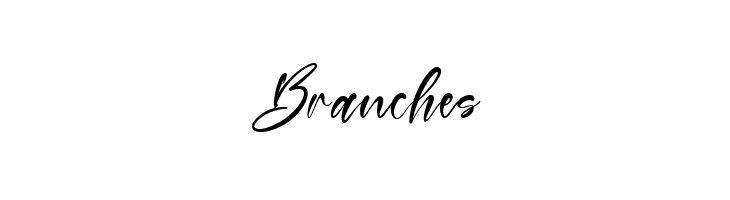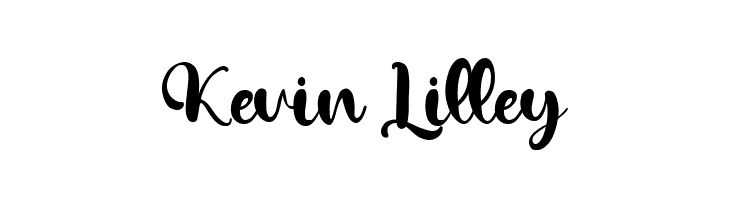
A bold, ornate blackletter font with a medieval aesthetic.
A cursive, handwritten font with elegant, flowing strokes and dynamic contrast.
A bold, cursive script font with a lively and energetic style.
A whimsical, decorative font with flowing, wavy lines.
A bold, expressive script font with a flowing, handwritten style.
Decorative script font with elegant swashes.
A lively, expressive handwritten font with fluid strokes and dynamic style.
An elegant script font with flowing swashes and a handwritten feel.
A lively handwritten font with fluid, expressive strokes.
A flowing, elegant script with delicate swashes and a calligraphic feel.
An elegant, flowing script font with cursive strokes and decorative flair.
A dynamic, handwritten font with bold, sweeping strokes and artistic flair.
A bold, cursive script font with dynamic and expressive strokes.
A bold, handwritten-style font with a playful and dynamic appearance.
An artistic font with bold, sweeping strokes and dynamic movement.
A bold, handwritten-style font with a playful and dynamic appearance.
A fluid and elegant script font with medium contrast and graceful curves.
A dynamic and elegant script font with fluid, cursive letterforms.
A lively, expressive handwritten font with fluid strokes and playful style.
A playful and elegant handwritten font with a modern twist.
An elegant, flowing script font with a handwritten style and medium contrast.
A cursive, handwritten-style font with elegant, flowing strokes.
A bold, playful script font with a lively handwritten style.
A stylish script font with elegant, flowing strokes and a handwritten feel.
An elegant, flowing script font with smooth, cursive letterforms.
Ornamental designs lacking alphanumeric characters.
A bold blackletter font with sharp, angular lines and intricate detailing.
A bold, gothic blackletter font with intricate detailing.
A bold, flowing script font with elegant, connected letters and a handwritten style.
A flowing, cursive font with elegant loops and smooth connections, perfect for artistic projects.
A flowing, cursive font with elegant loops and smooth transitions.